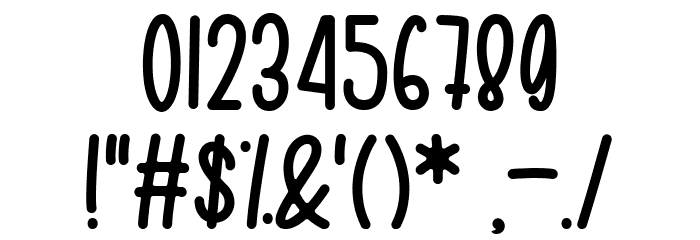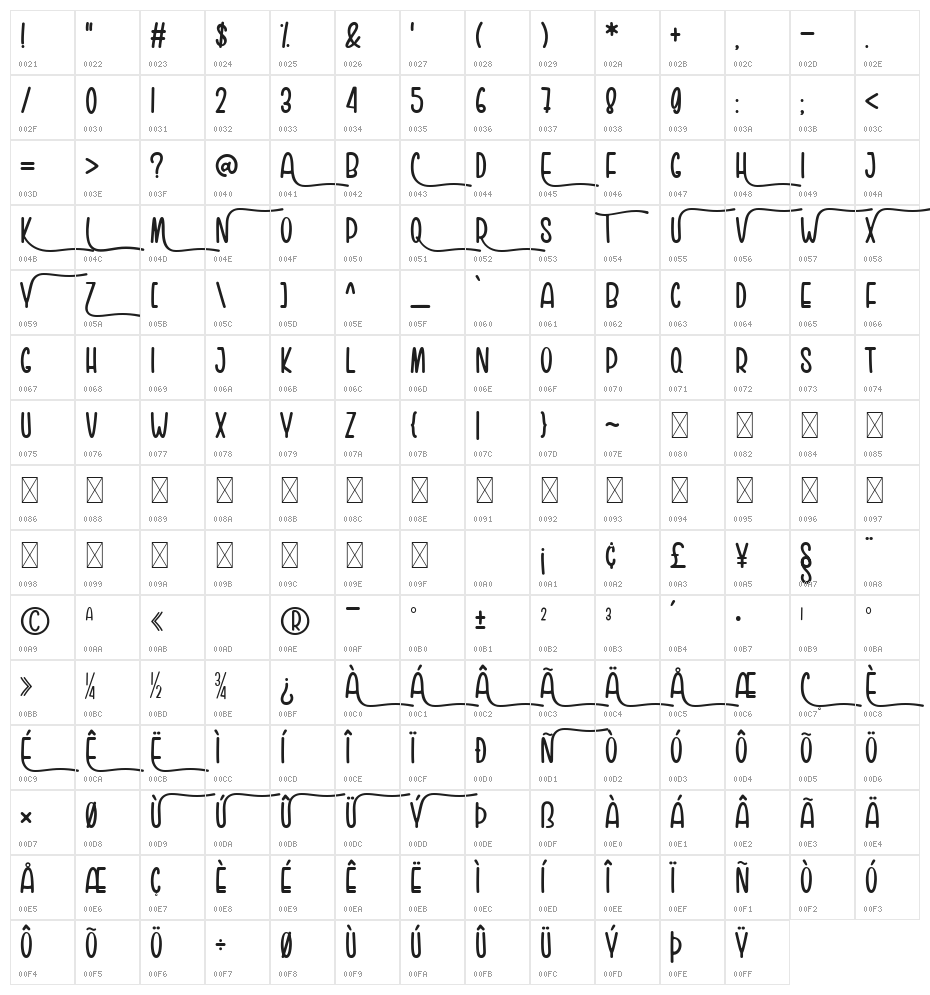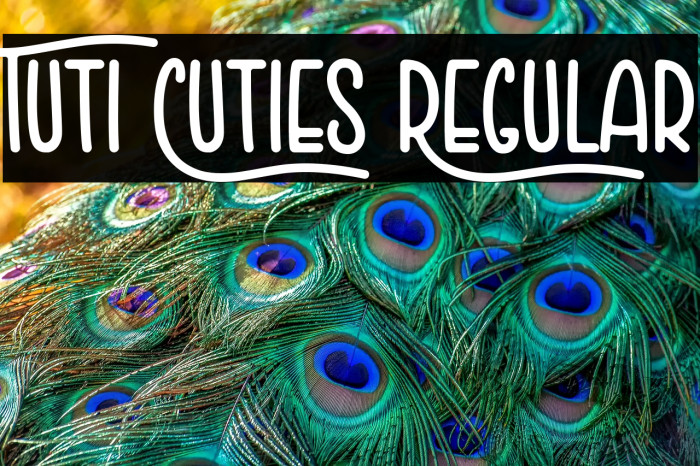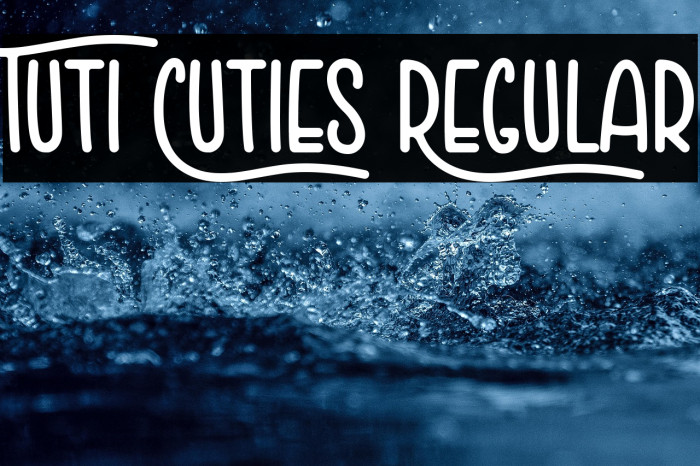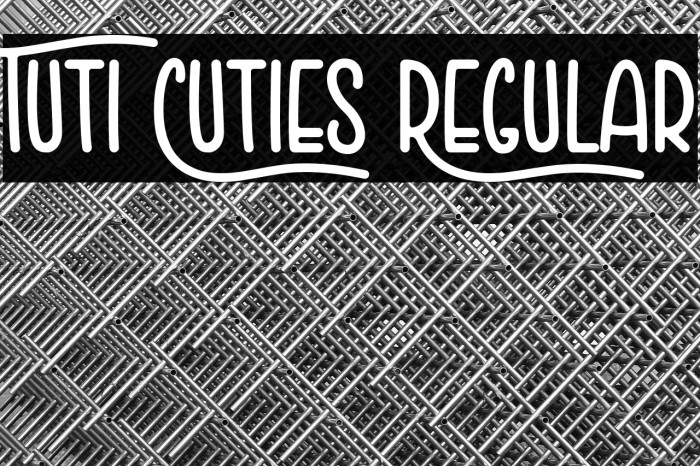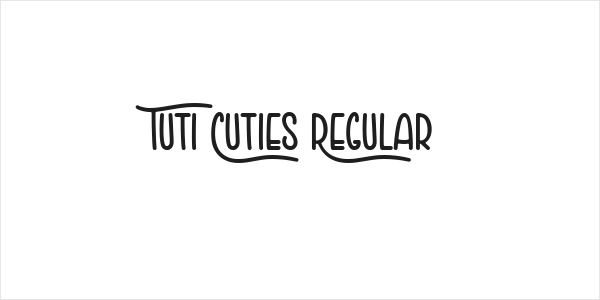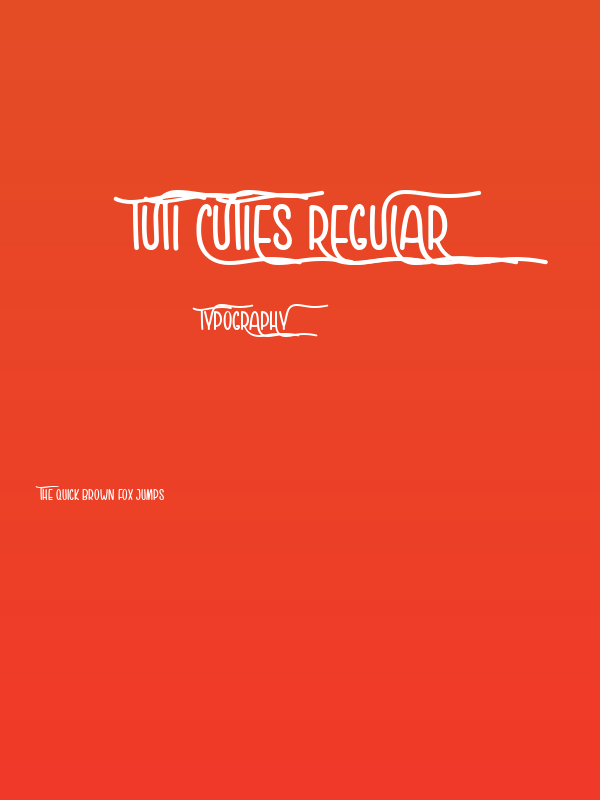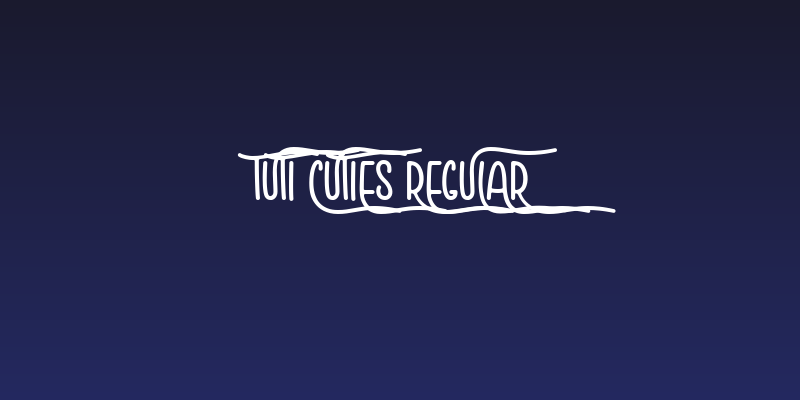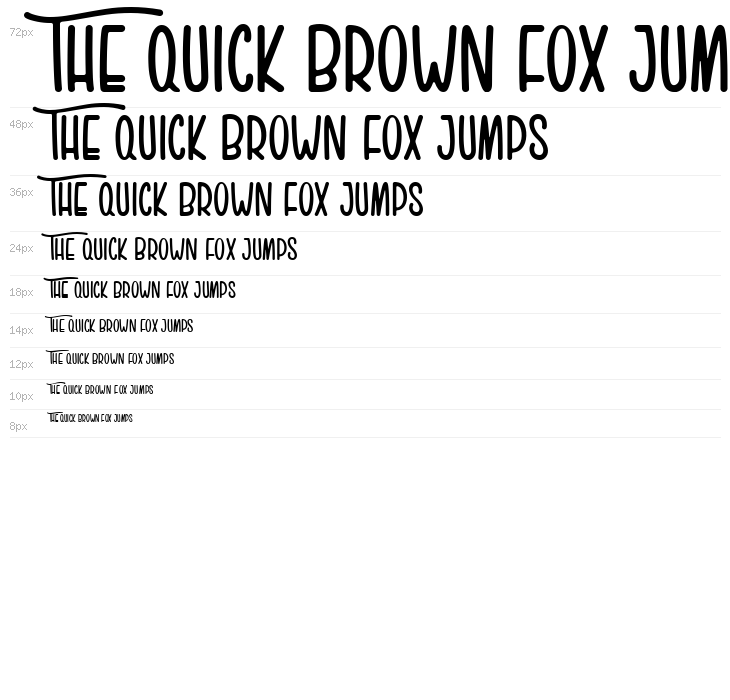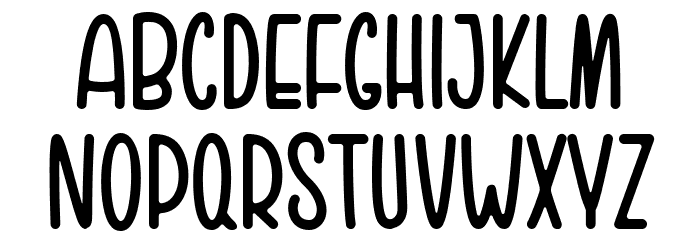
Tuti Cuties Regular Font
Tuti Cuties Regular Description
This playful and whimsical font features rounded, bold characters with a hand-drawn aesthetic. The letters are slightly elongated, giving a unique and friendly appearance. The overall style is casual and approachable, making it suitable for projects that require a fun and informal touch. The numbers and special characters maintain the same playful style, ensuring consistency across different uses. The font's design is perfect for capturing attention while maintaining readability.
| Proposed Projects | Ideal for children's books, playful branding, greeting cards, and informal invitations. |